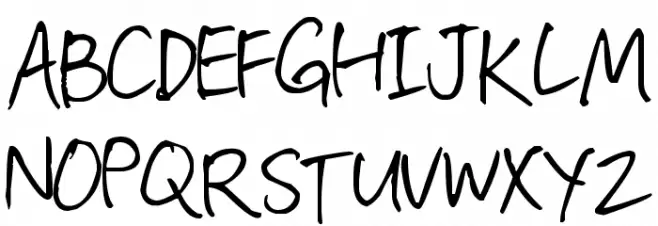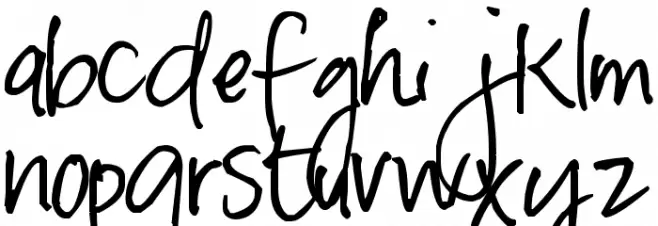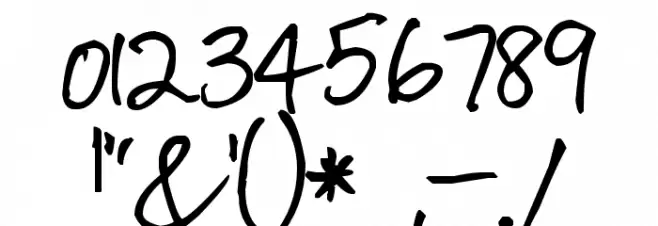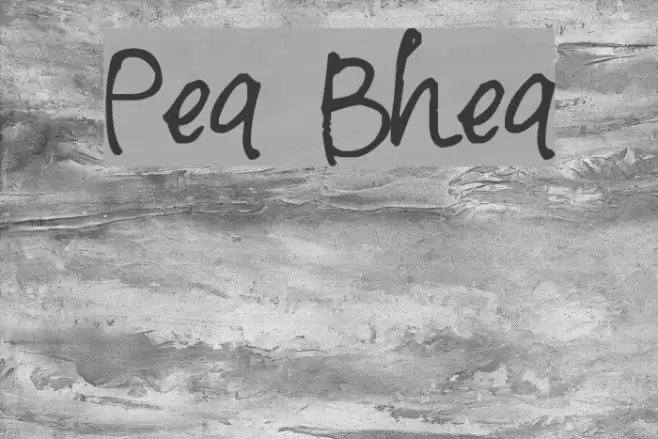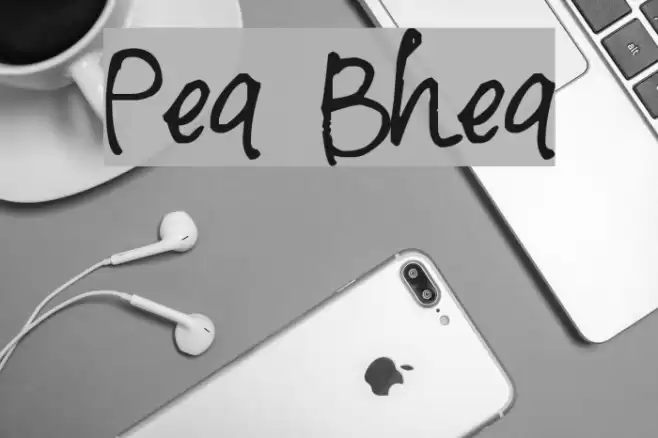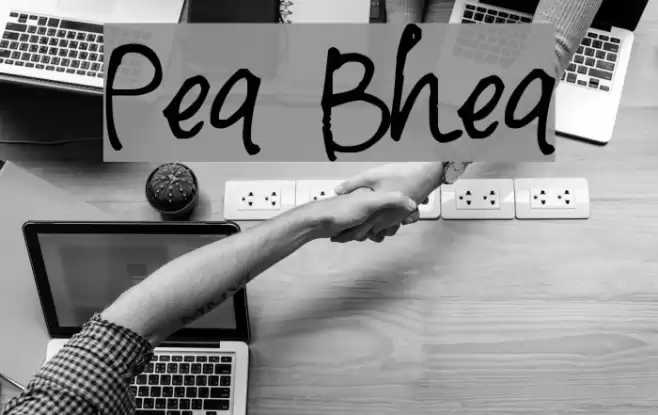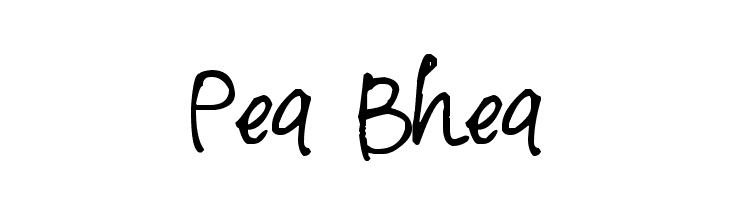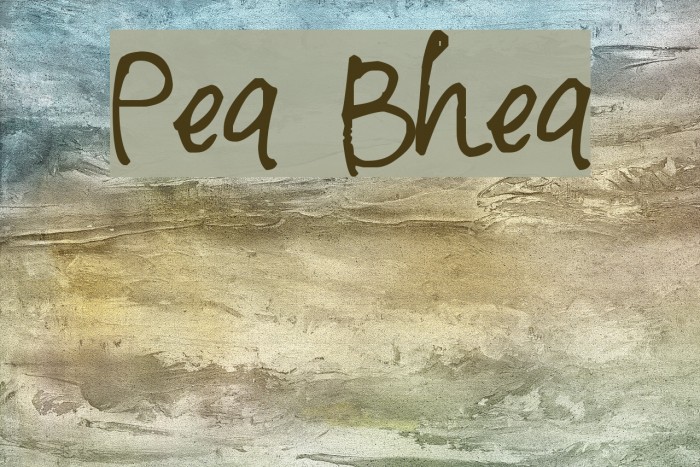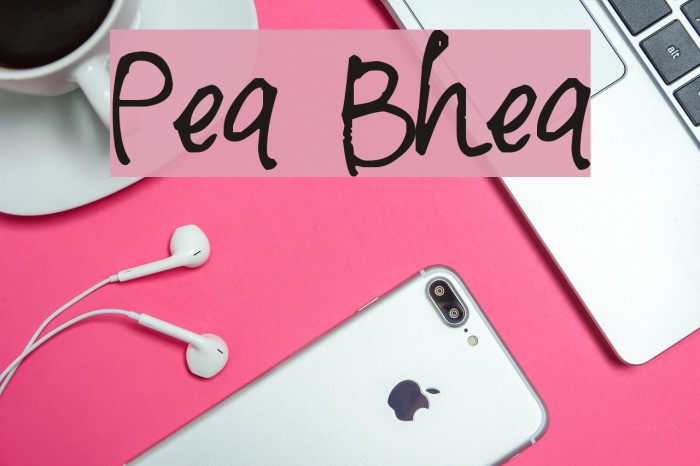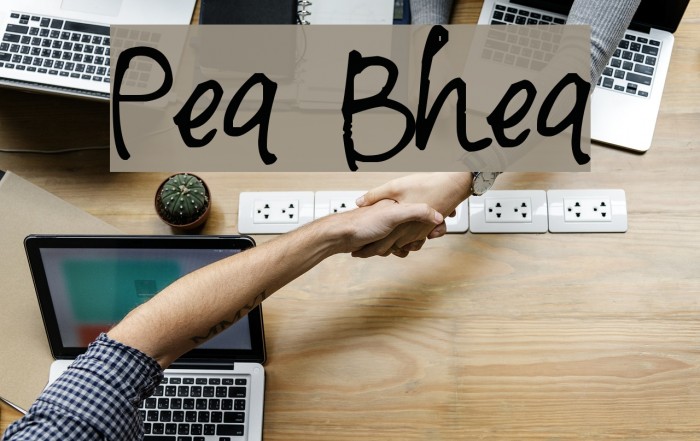
Pea Bhea
This font exudes a casual and playful handwritten style, characterized by its fluid and dynamic strokes. The letters are slightly slanted, giving a sense of movement and energy. The uppercase and lowercase letters maintain a consistent flow, with some letters like 'a', 'e', and 'g' featuring distinctive loops and curves. The numbers and special characters are crafted with the same lively touch, ensuring a cohesive look across all elements. The overall appearance is informal and approachable, making it ideal for projects that require a personal touch.
A playful and dynamic handwritten font with fluid strokes.
- Proposed Projects: Ideal for personal notes, greeting cards, casual branding, and social media graphics.
- Overall Style: Casual
- Use Case: Greeting cards, Personal notes, Casual branding